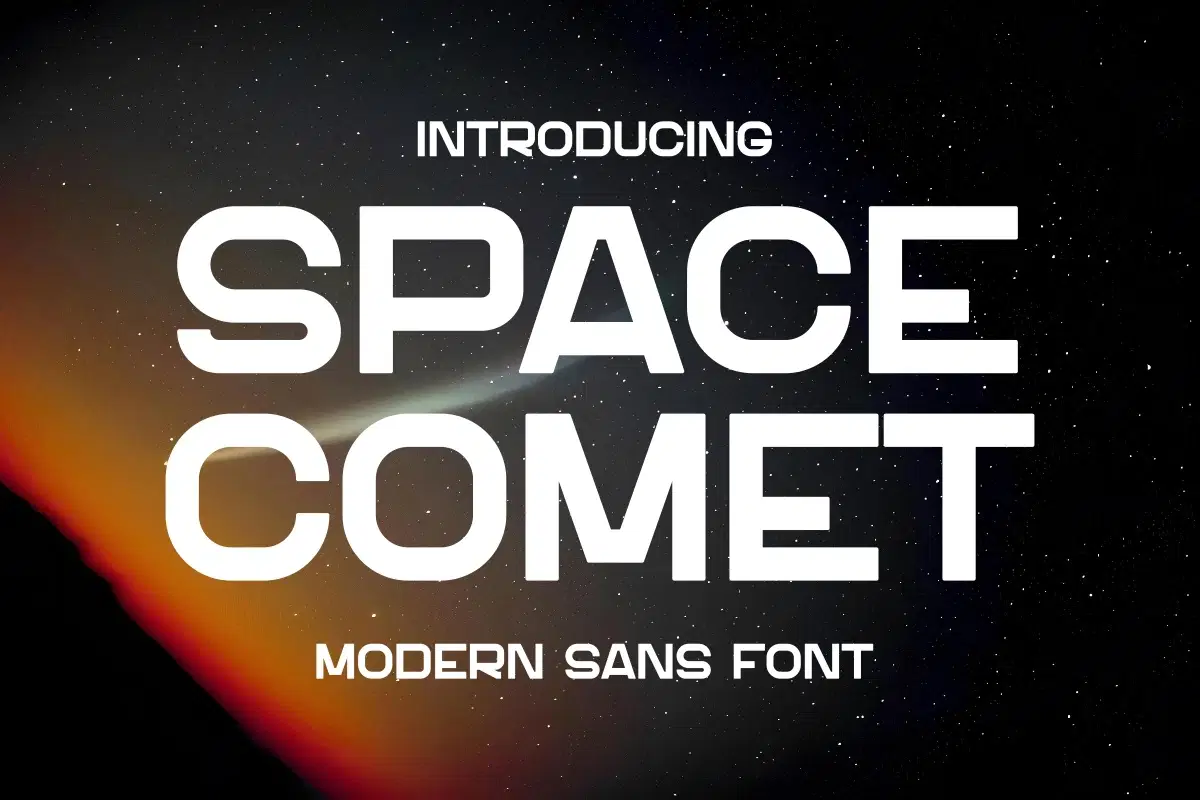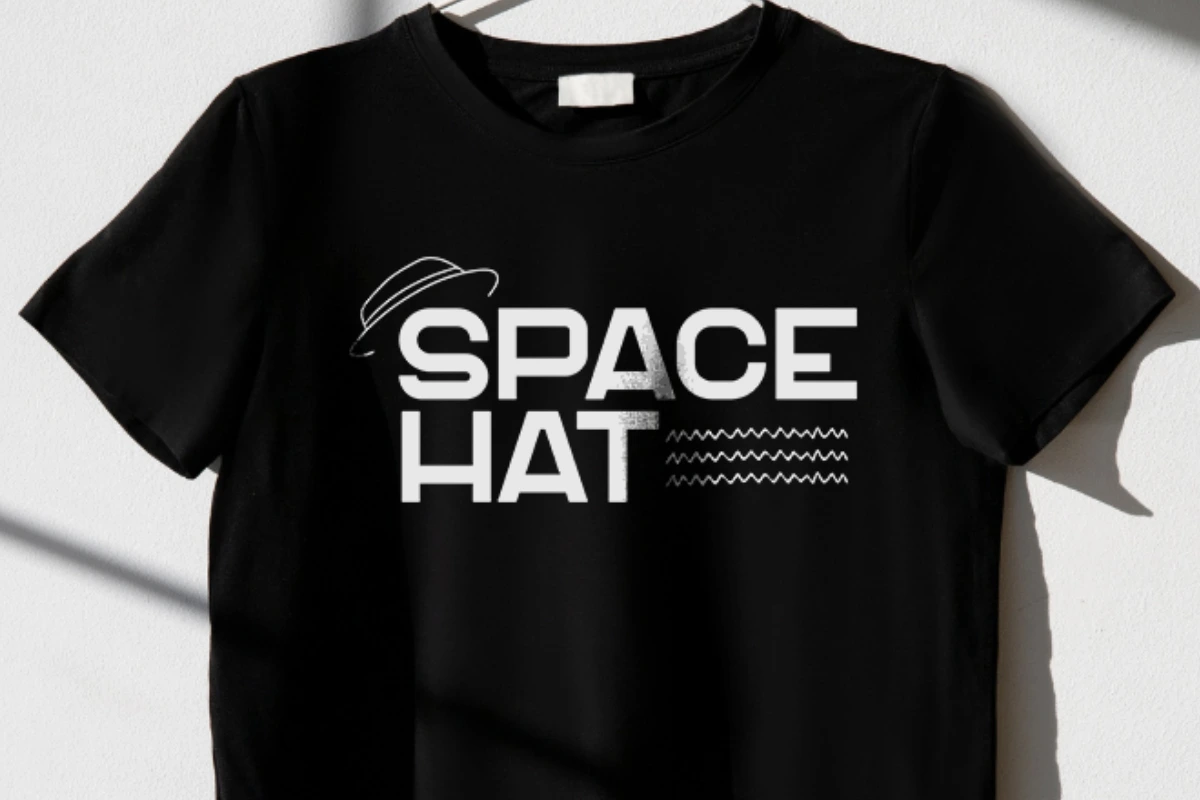
Introducing SPACE COMET, a commanding display font that embodies the essence of modern technology and the vastness of space. This ultra-bold, all-caps modern sans serif is engineered for maximum clarity and visual dominance, ensuring your text is immediately legible and impossible to ignore.